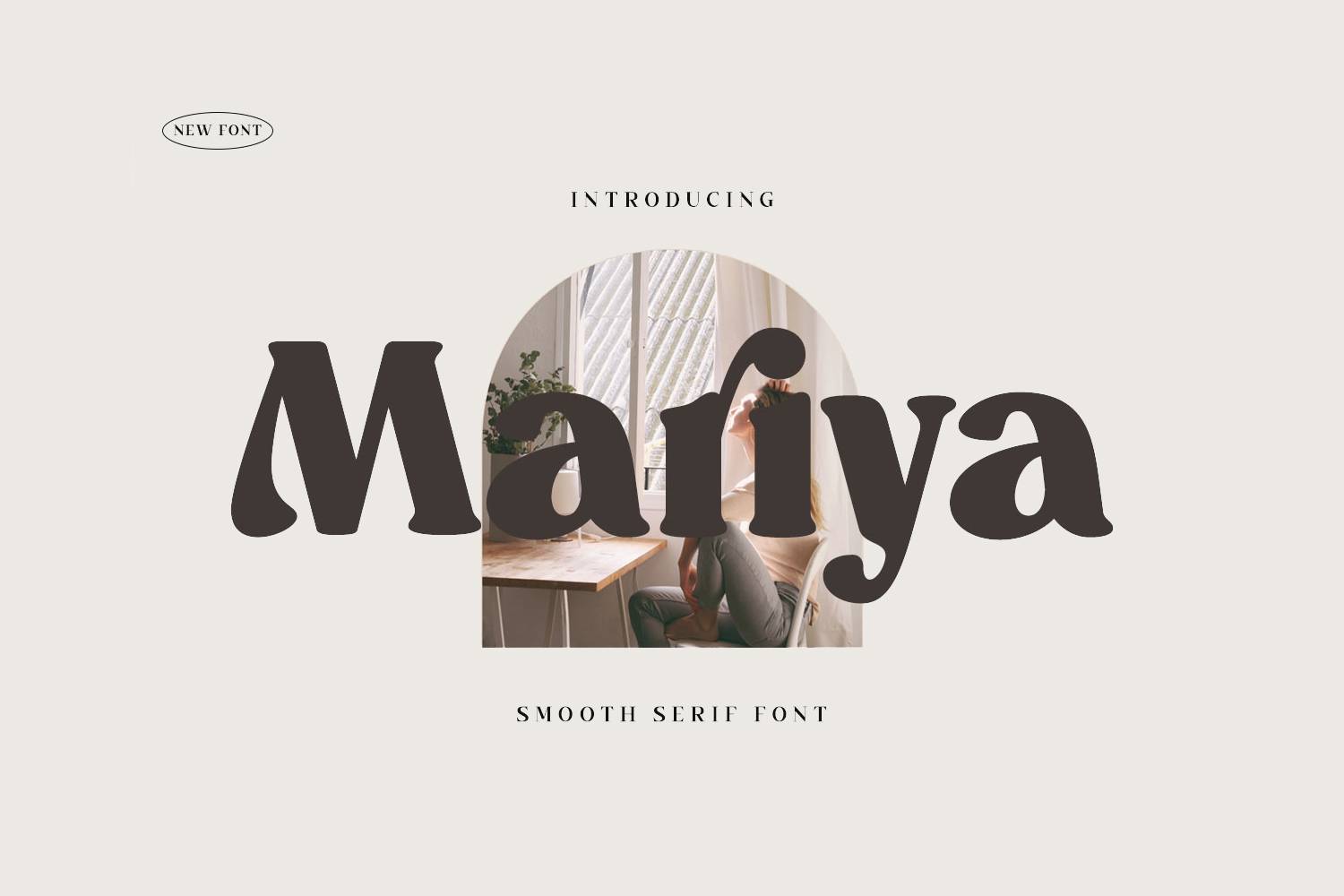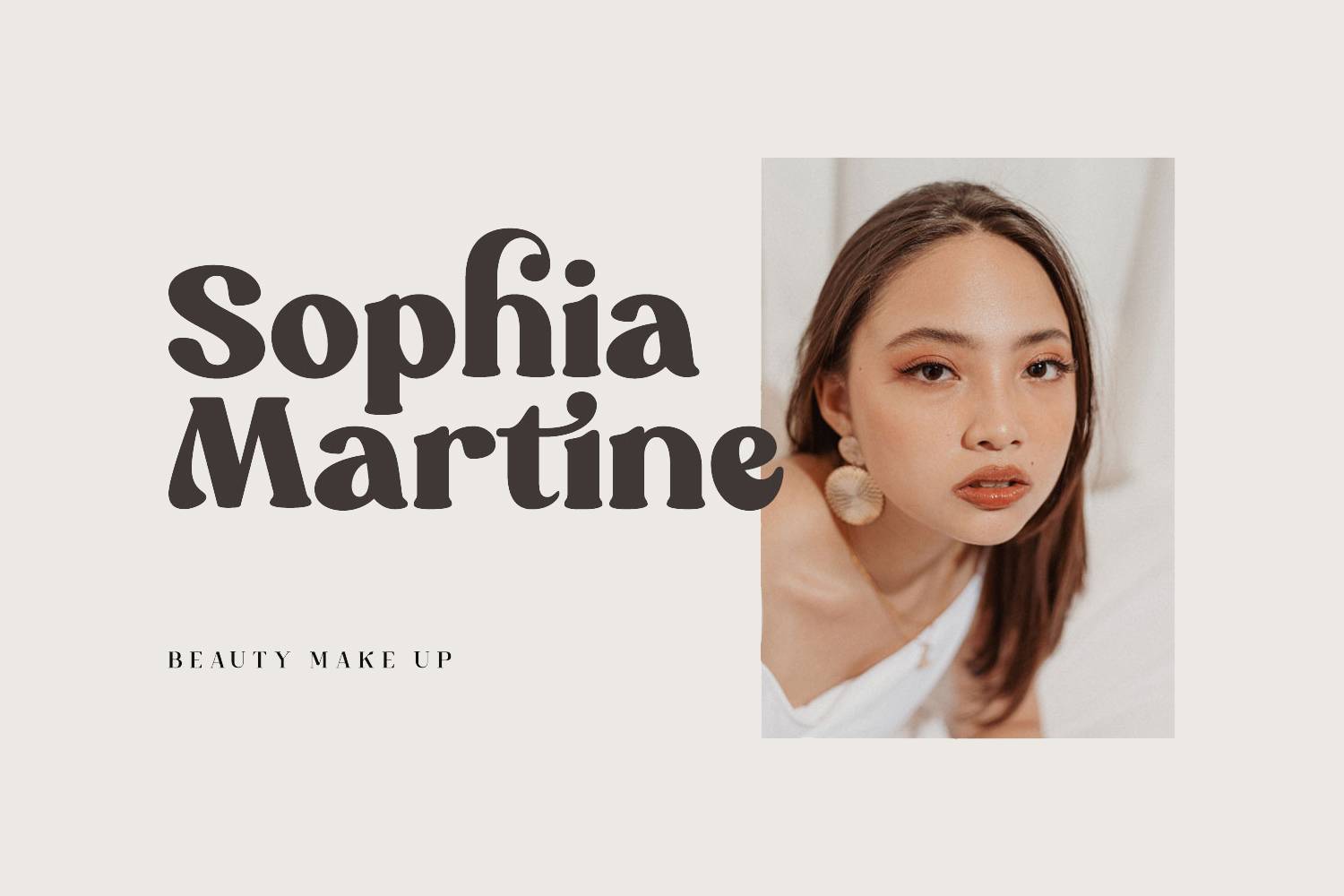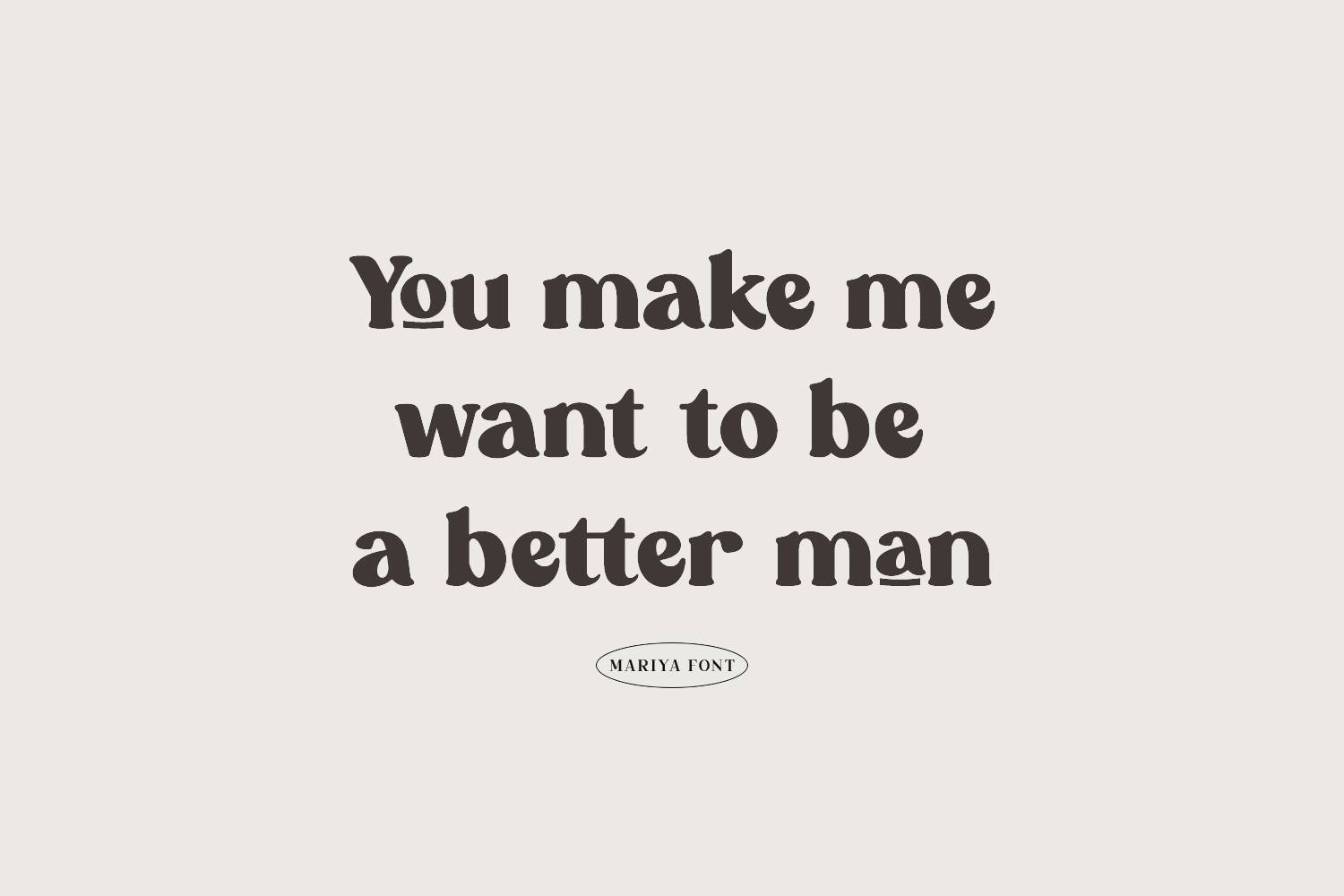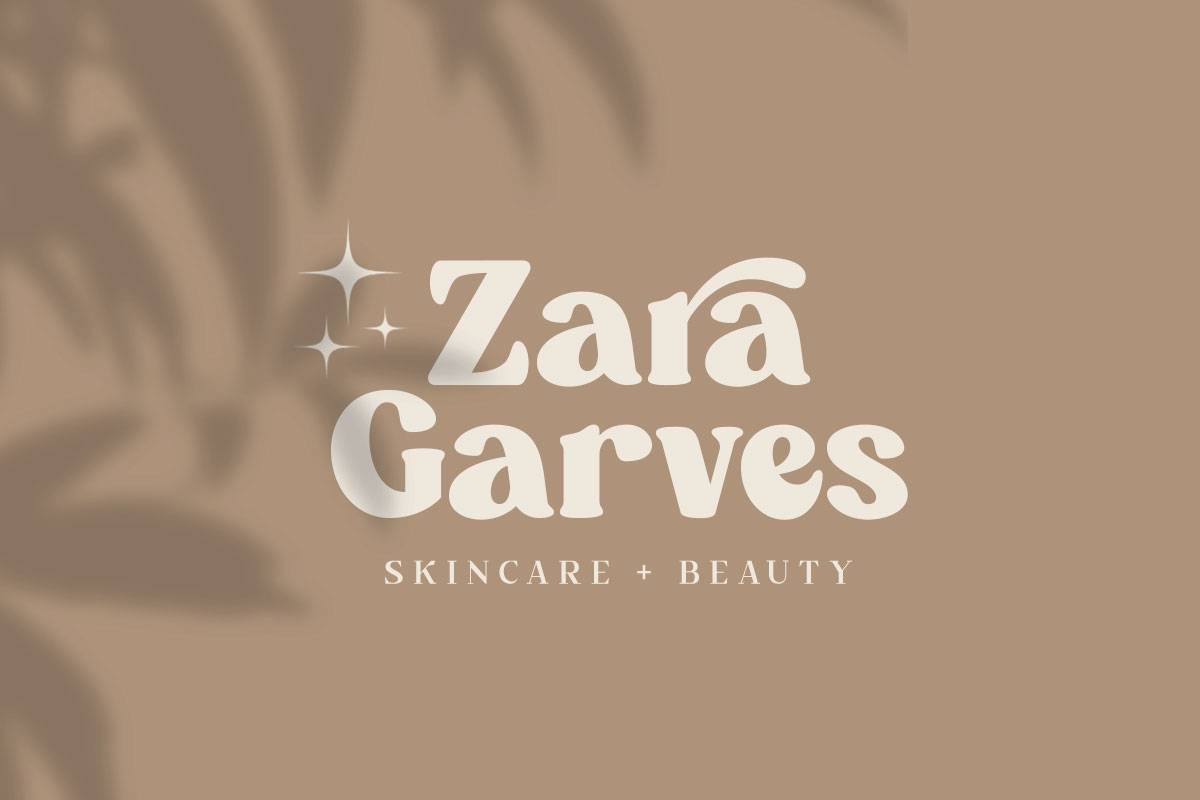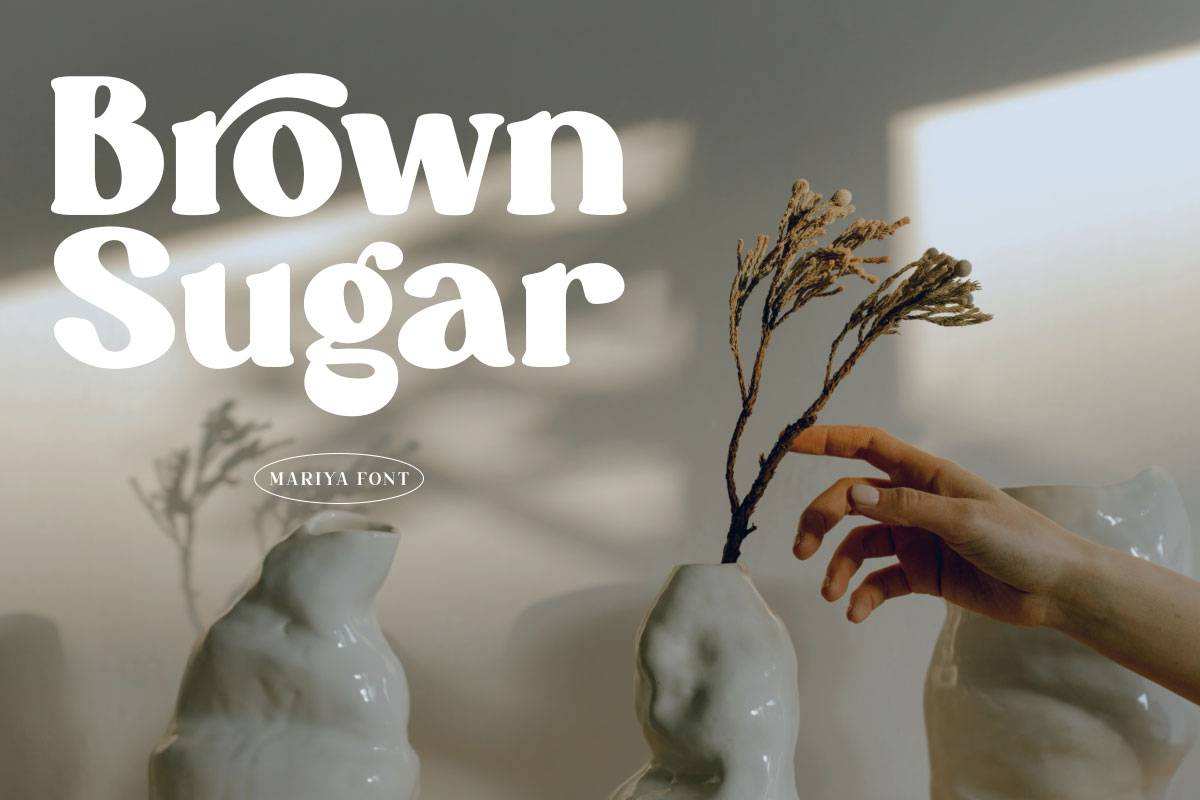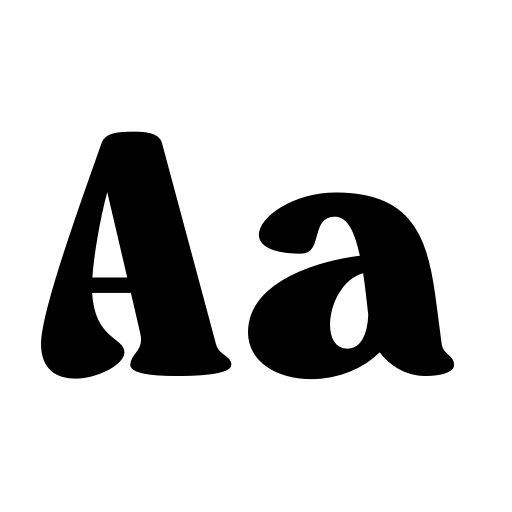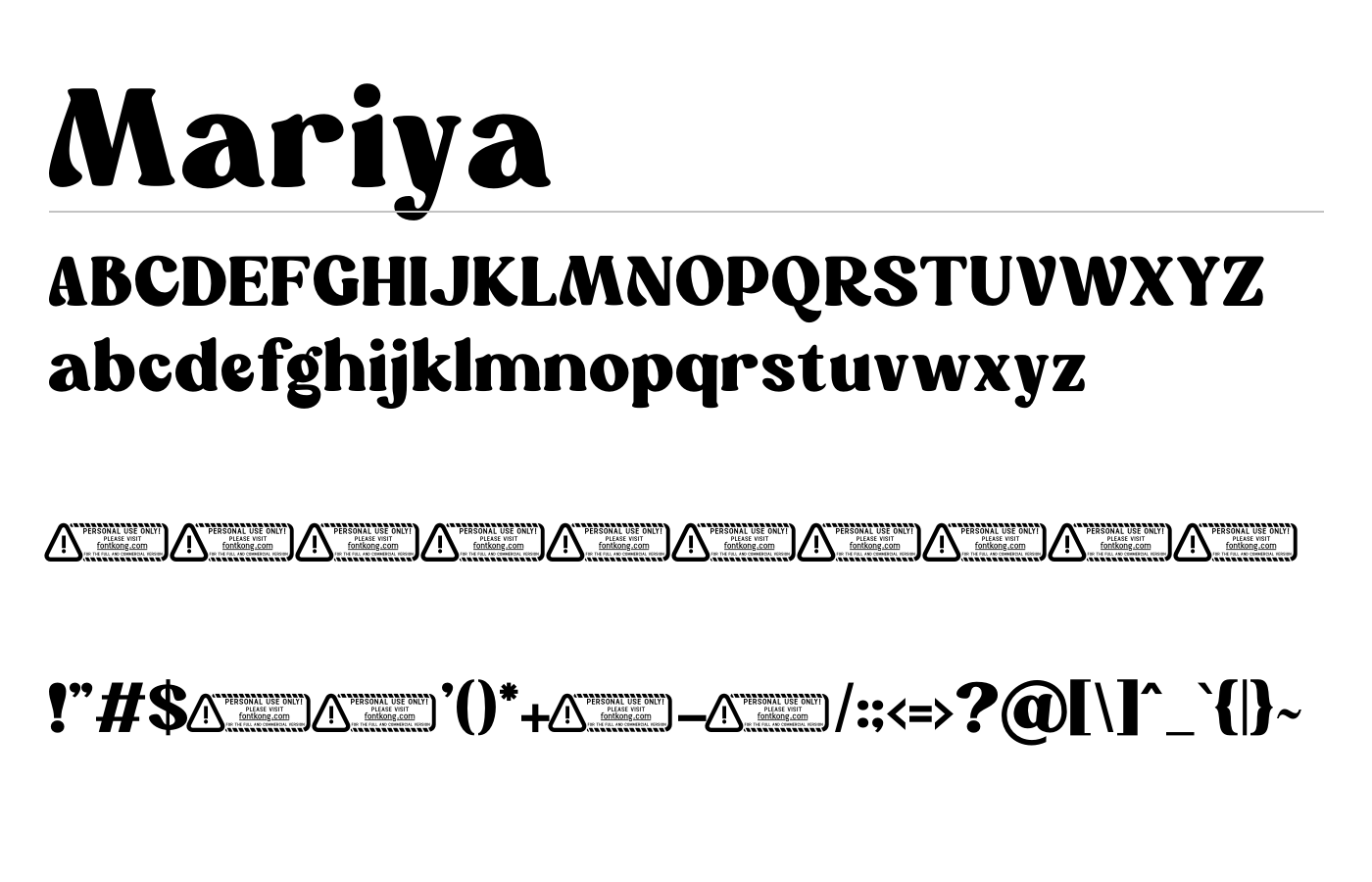
Mariya is a bold serif typeface with a playful yet strong personality, characterized by its thick, rounded serifs and high contrast between strokes. Its wide letterforms and distinctive quirky details give it a vintage feel, making it ideal for eye-catching headlines, logos, and creative branding that want to convey confidence with a touch of charm. This font works best in display settings where its unique style can stand out and add character.
Mariya Font
About Mariya Font